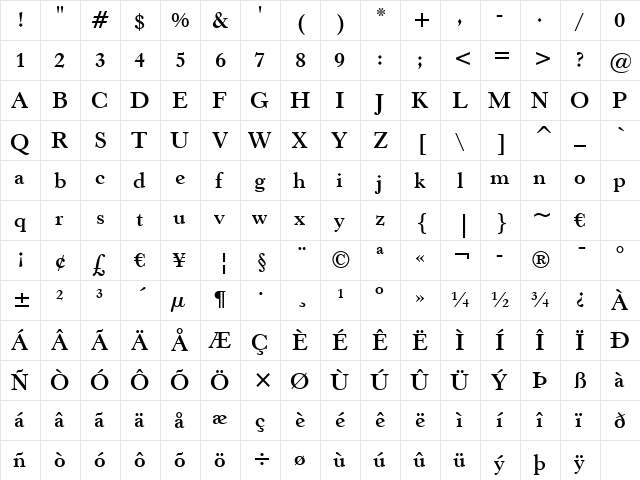
Revivl555 BT Bold
Design Context for Revivl555 BT Typeface
Revivl555 BT takes a measured approach to typography — its balanced proportions and neutral character make it a reliable workhorse for both digital and print work. Its bold stroke weight gives it real presence on the page.